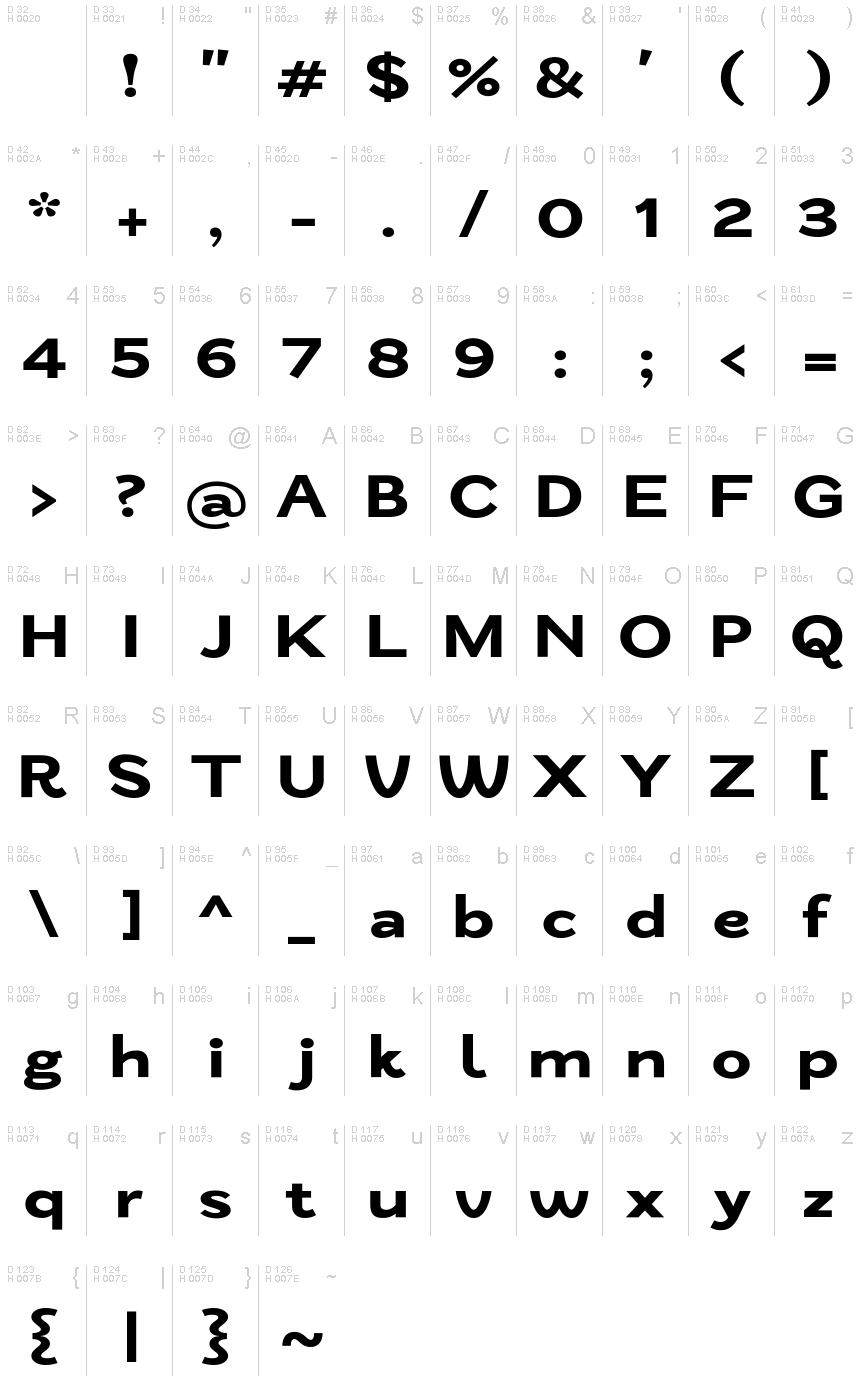
Zt Nezto DEMO Extra Bold
ZT Nezto is a captivating sans-serif font designed by Khaiuns. Marked by its bold, expanded strokes and elegant, curved forms, this font exudes a refined and sophisticated aesthetic. The careful balance between sharp edges and graceful curves creates a visually striking and harmonious typographic composition, making each character a work of art in itself. This font's unique design flourishes promise to elevate any project, evoking a sense of modern elegance and timeless appeal.
The versatility of ZT Nezto allows it to shine across a diverse range of applications, from branding and editorial design to packaging and signage. Its bold, expanded structure lends itself beautifully to eye-catching headlines and impactful display text, while the clean, legible forms ensure excellent readability in body copy. ZT Nezto's distinctive character will captivate audiences, making it an exceptional choice for designers seeking to elevate their work with a touch of refined sophistication.